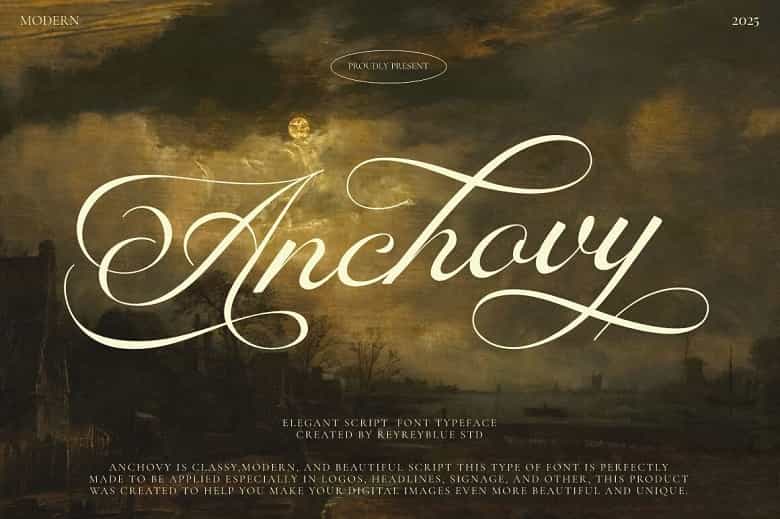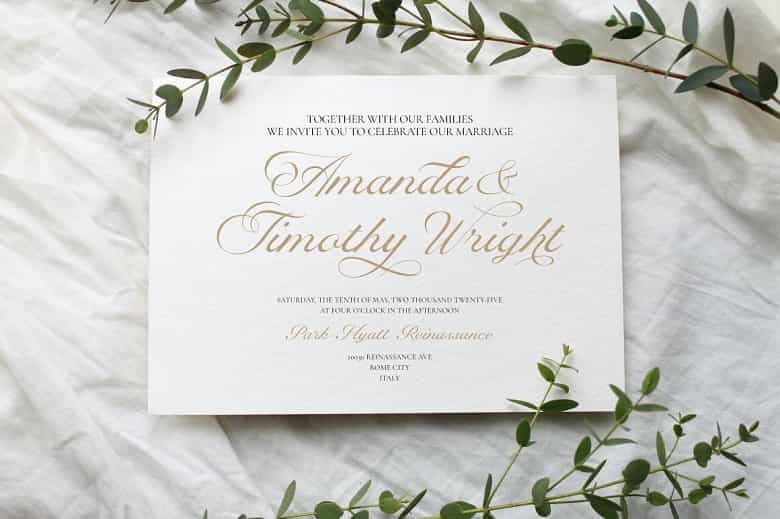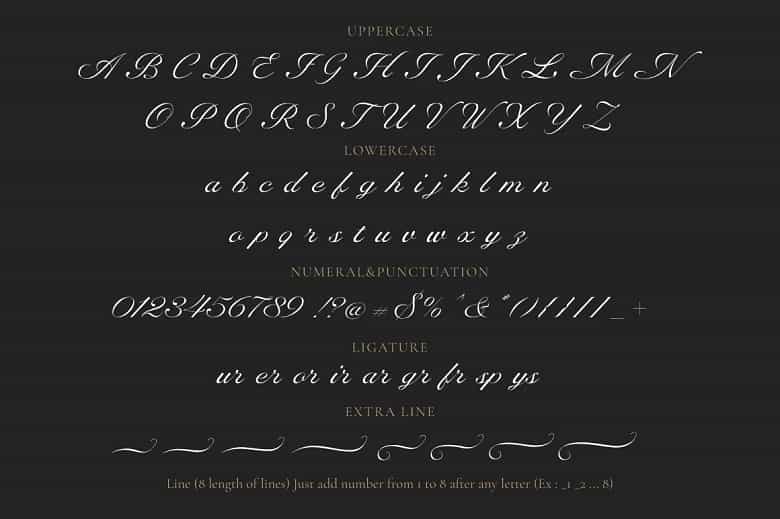
Discover Rb Anchovy Font, part of the Calligraphy collection—a versatile and unique font perfect for adding a personal touch to your projects. Download it for free and enjoy crafting designs with style, from invitations to social media posts. This font is available exclusively for personal use, giving you the freedom to create without limits. Unlock your creativity with Rb Anchovy Font today!
RB Anchovy – is a brand new calligraphy script typeface that can add some luxury to any project. This typeface has been designed for today’s world with the elegance and sophistication that will help you make your design stand out. RB Anchovy’s smooth and subtle shapes and its smooth lines add a new dimension of sophistication to each sweep, making your project look more polished.